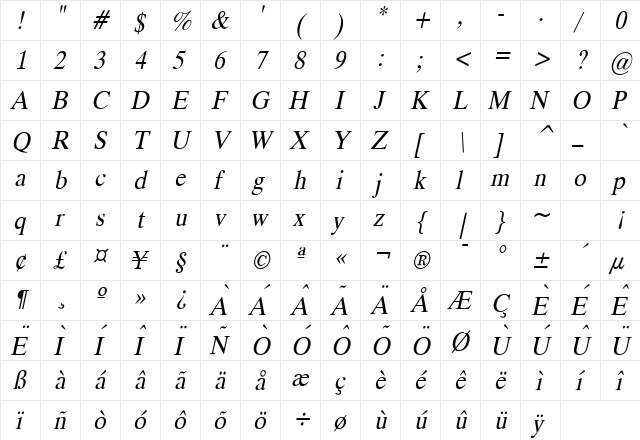
Duke Italic
Design Context for Duke Typeface
Duke is a composed and adaptable typeface that performs quietly and consistently across a wide range of design contexts. Its italic angle brings a sense of urgency and motion to the letterforms.
Pro Tip: Try Duke for annotation and caption copy alongside an upright companion — the contrast in angle creates a dynamic but ordered typographic system.